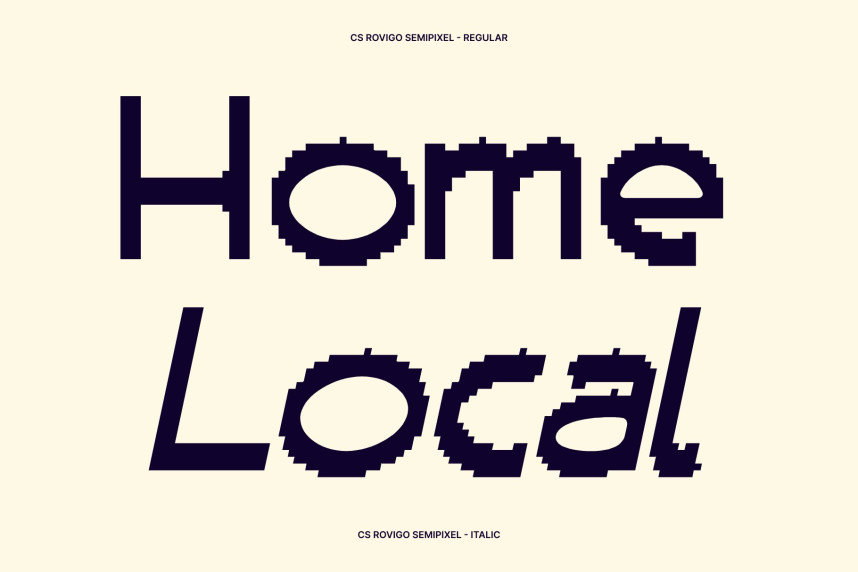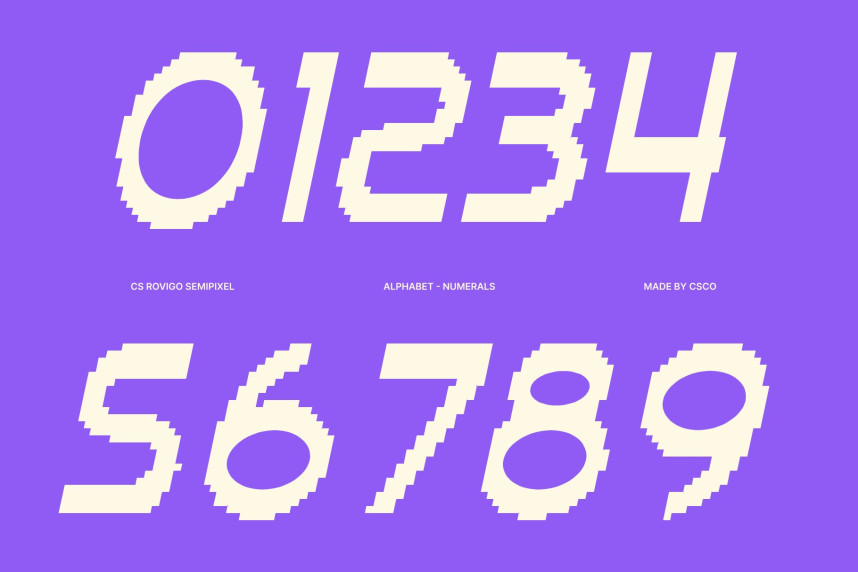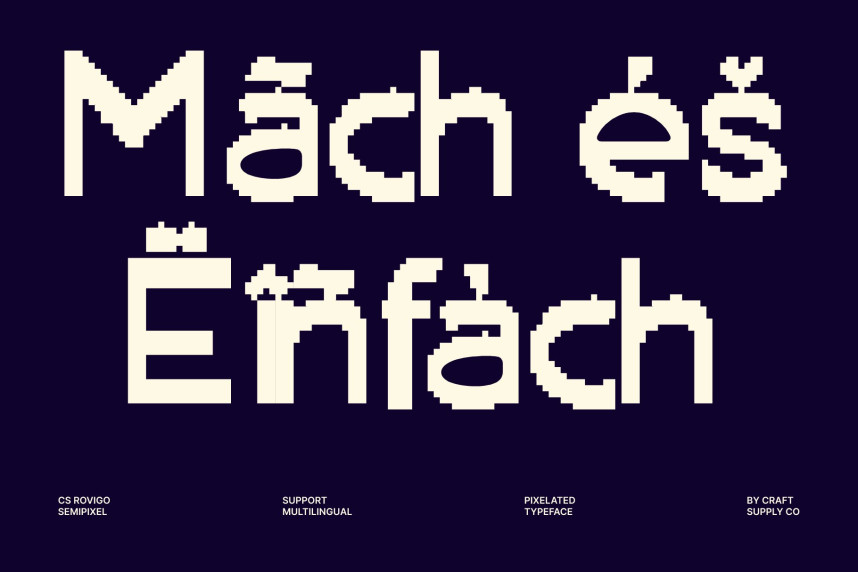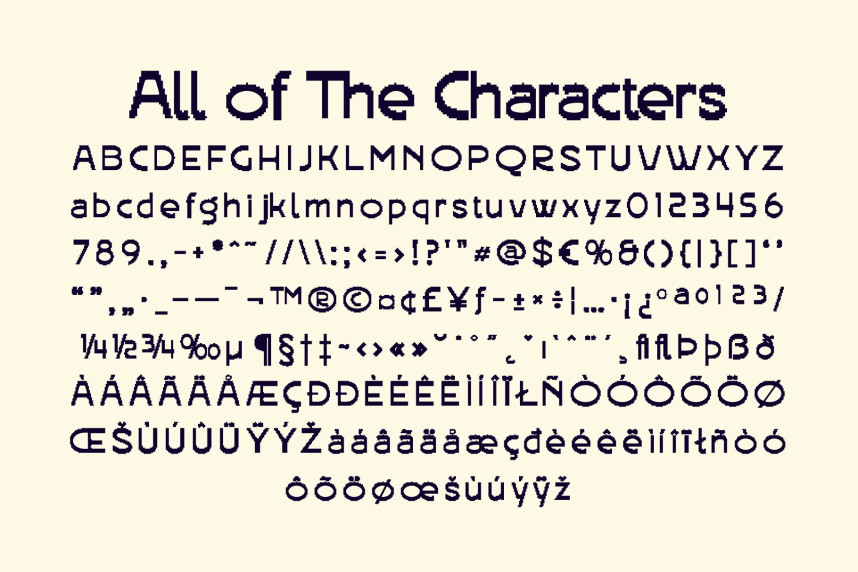
CS Rovigo Semipixel Font
CS Rovigo Semipixel Font – Modern Sans Serif Display Font: Where Retro Geometry Meets Smooth Pixel Innovation
Retro Inspiration with Playful Geometric Forms
This is a modern sans serif display font that blends retro-inspired aesthetics with playful geometric construction. Its bold, clean letterforms evoke the charm of classic digital design while maintaining a fresh contemporary appearance. The balanced geometry and expressive proportions create typography that feels nostalgic, energetic, and effortlessly modern.
Semipixel Design with Smooth Digital Character
This font combines the structured appeal of pixel-inspired square shapes with smooth curves and refined modern detailing. Unlike traditional pixel fonts with rigid blocky forms, this hybrid approach softens the geometry, resulting in a cleaner, more versatile typeface that retains its digital personality while offering enhanced readability and visual elegance.